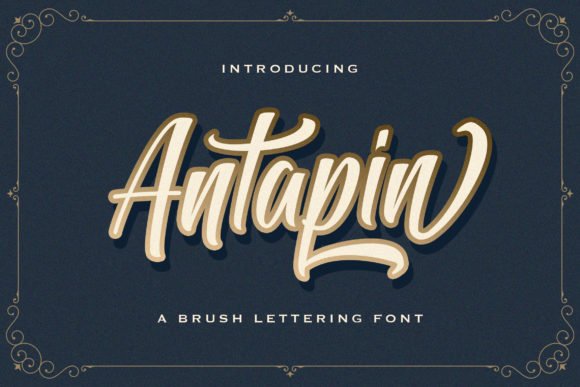
Unleash the Romance with the Enchanting Antapin Font
Have you ever found yourself pouring your heart out onto a blank page, searching for the perfect words to express your feelings? Perhaps it was a love letter, a heartfelt apology, or a sweet birthday message. Whatever it was, you knew that the right font could make all the difference. That’s where the Antapin Font comes in – a charming, handwritten script that adds a touch of romance to any project.
With its versatility and PUA encoding, the Antapin Font is a designer’s dream come true. Whether you’re creating a wedding invitation, a birthday card, or a bold headline, this font is guaranteed to add a personal touch. And with its wide range of glyphs and swashes, you’ll never run out of creative possibilities.
Antapin Font Key Features
- Font Family: Antapin
- Unique Characteristic: The Antapin font has a distinctive, modern design with rounded edges and a friendly feel, making it ideal for use in logos, branding, and digital products
Antapin Font Review
Overall, I was excited to dive into the Antapin font and see what it had to offer. As a designer, I’m always on the lookout for fresh and unique fonts to add to my toolkit. Here’s my honest review of this font.
- ✨ Beautiful hand-drawn feel: The Antapin font has a lovely, organic feel that’s perfect for adding a touch of whimsy to your designs.
- ✨ Wide character set: The font includes a wide range of characters, including Latin, Cyrillic, and Greek alphabets, making it a great choice for multilingual projects.
- ✨ OpenType features: The font supports a range of OpenType features, including ligatures and swashes, which can add a lot of visual interest to your designs.
- ⚠️ Limited font sizes: While the font looks great at smaller sizes, it can start to break down at larger font sizes, which may not be ideal for titles or headings.
- ⚠️ Limited line spacing: The font’s line spacing can be a bit tight, which may make it difficult to read in certain contexts.
Overall, I think the Antapin font is a great choice for designers who want to add a unique, hand-drawn feel to their projects. While it may have some limitations, it’s a versatile font that’s worth exploring further.
For the most out of the Antapin Font, use it for headings and titles to add a touch of sophistication to your designs. It’s also great for creating custom logos, icons, and graphics. Avoid using it for large blocks of text, as it can be difficult to read.